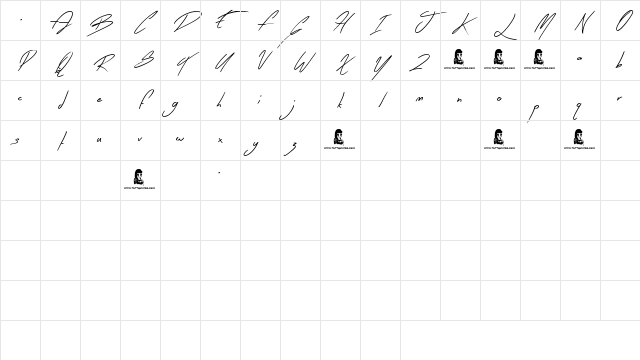
Early Bird Regular Free Font
Early Bird Regular
Foundry: Jonathan S. Harris
Designer: Jonathan S. Harris
Design Context for Early Bird
Early Bird is a composed and adaptable typeface that performs quietly and consistently across a wide range of design contexts.